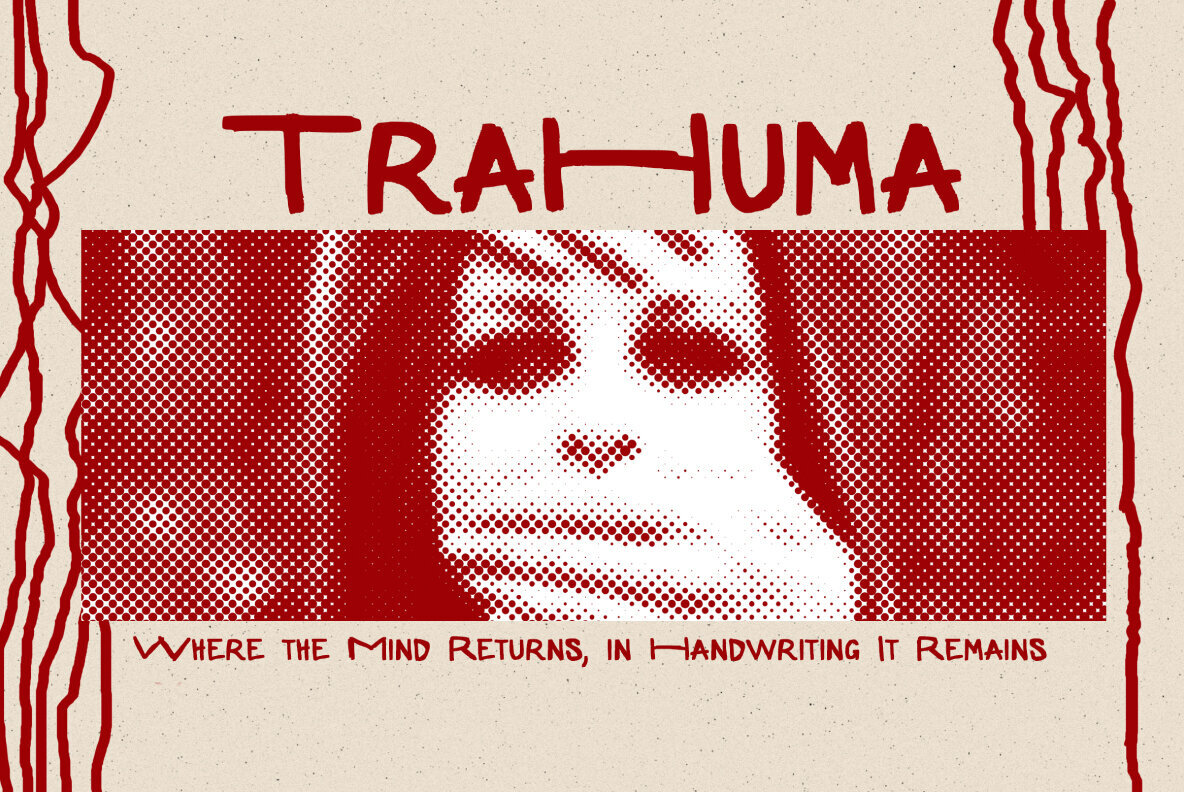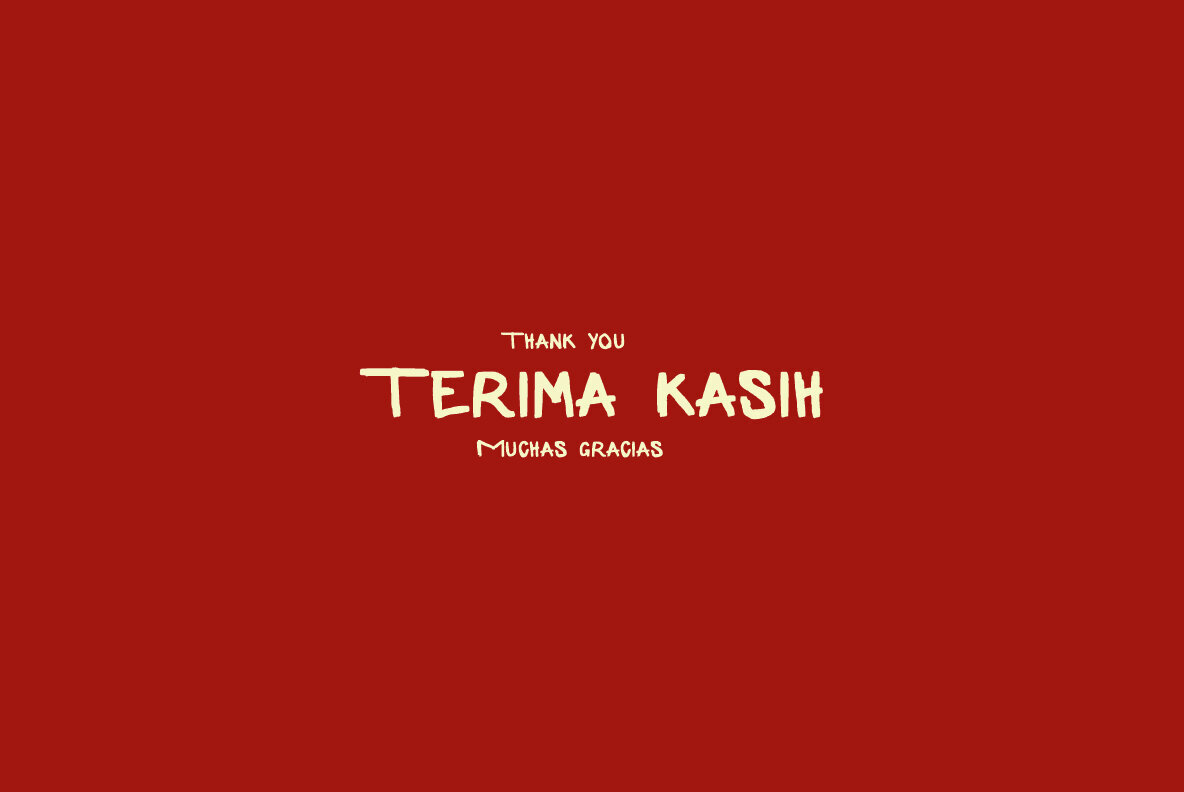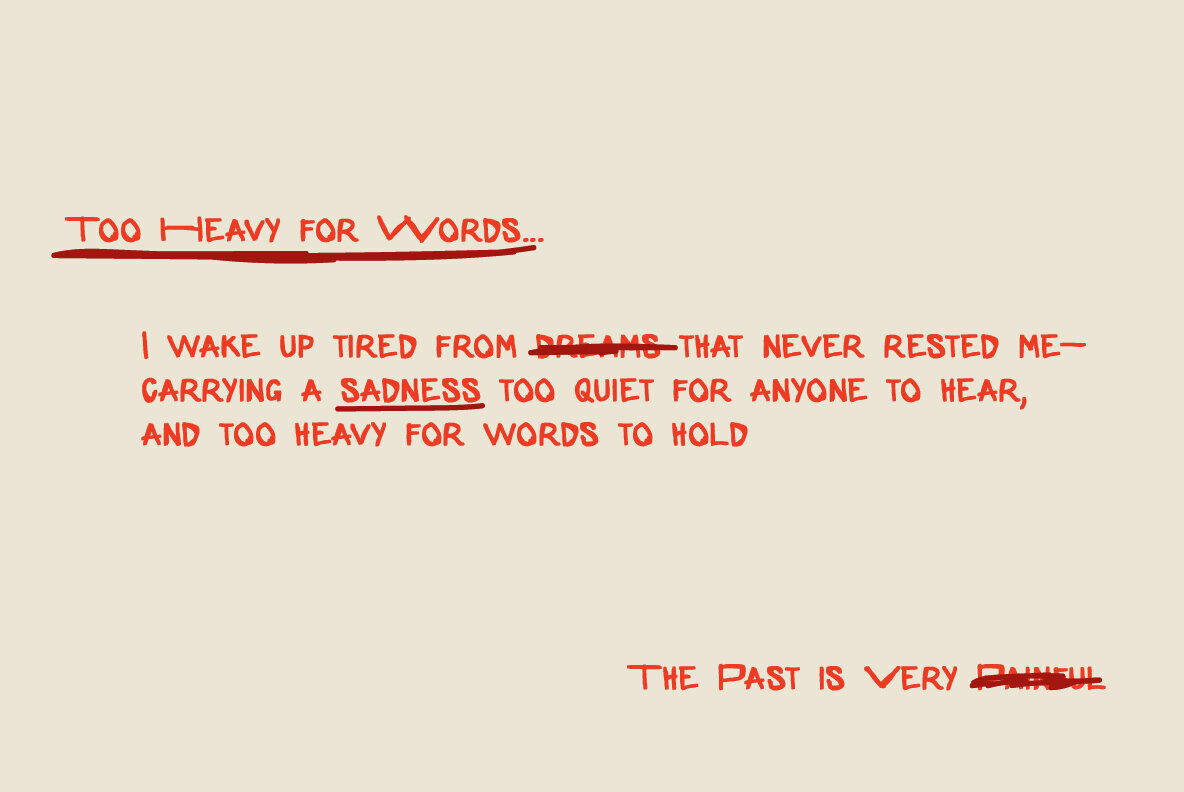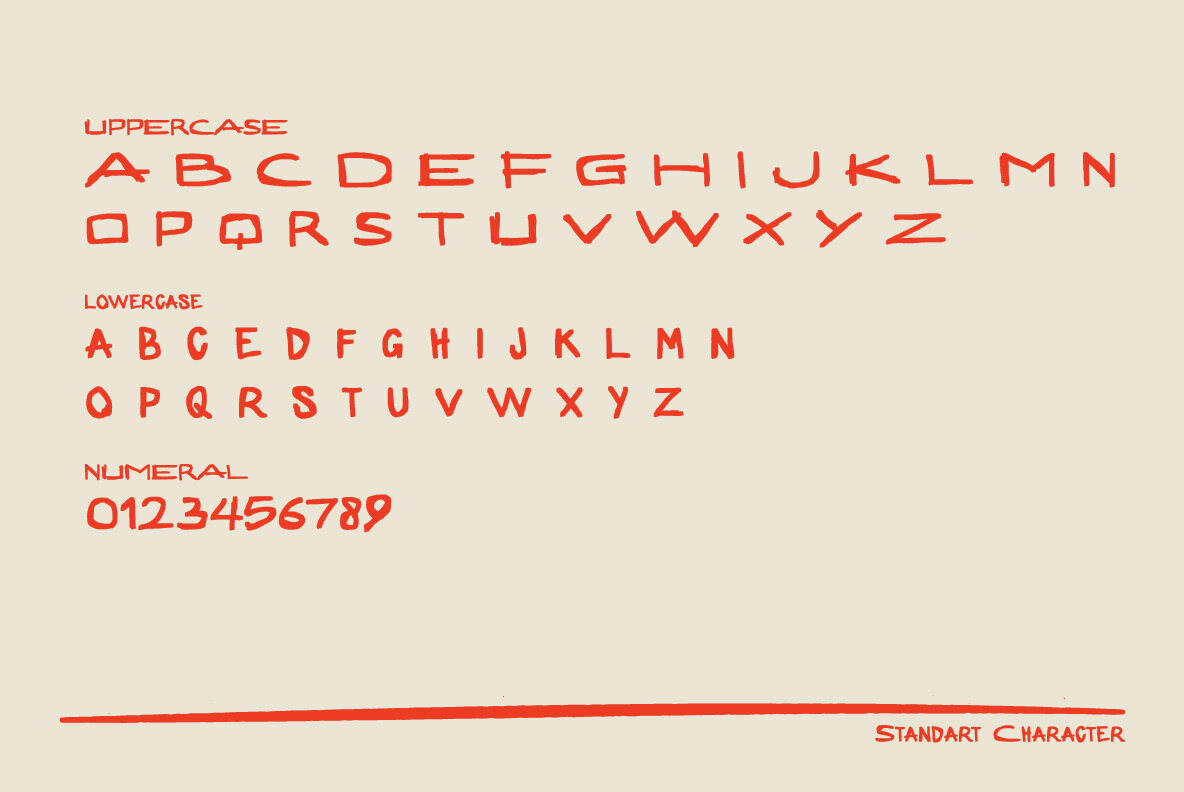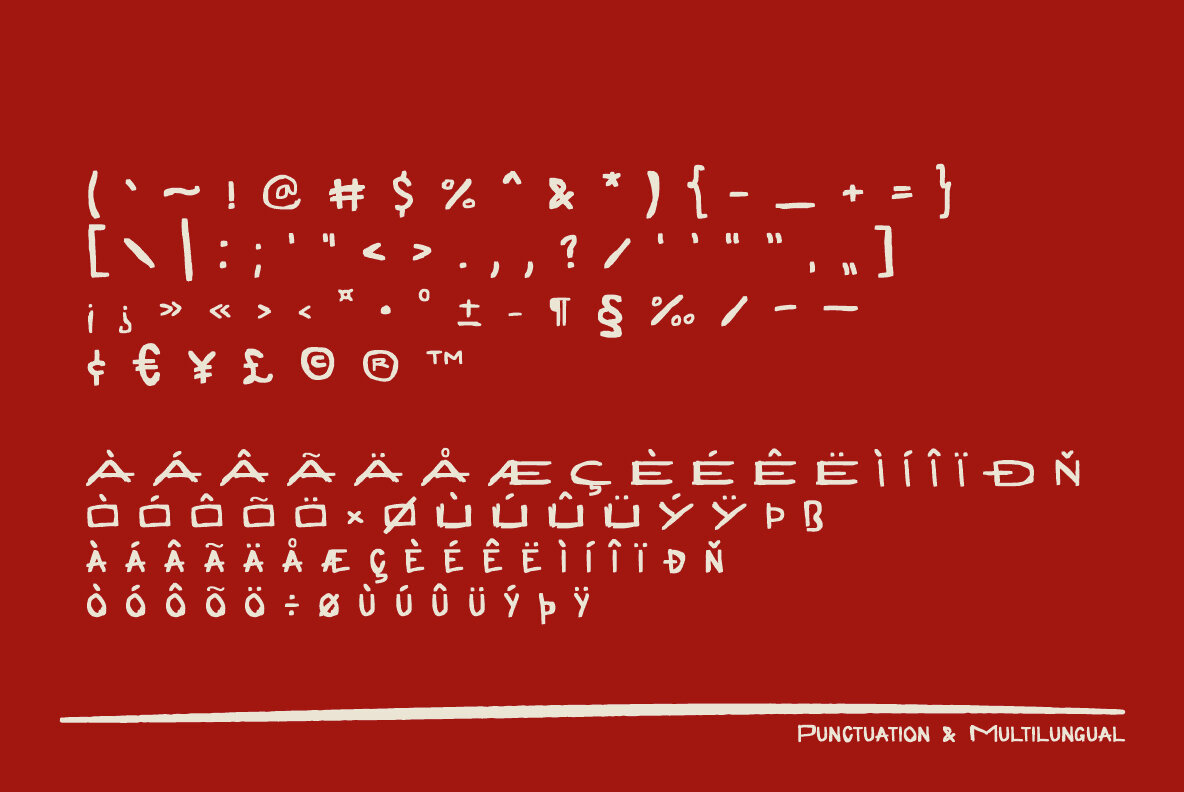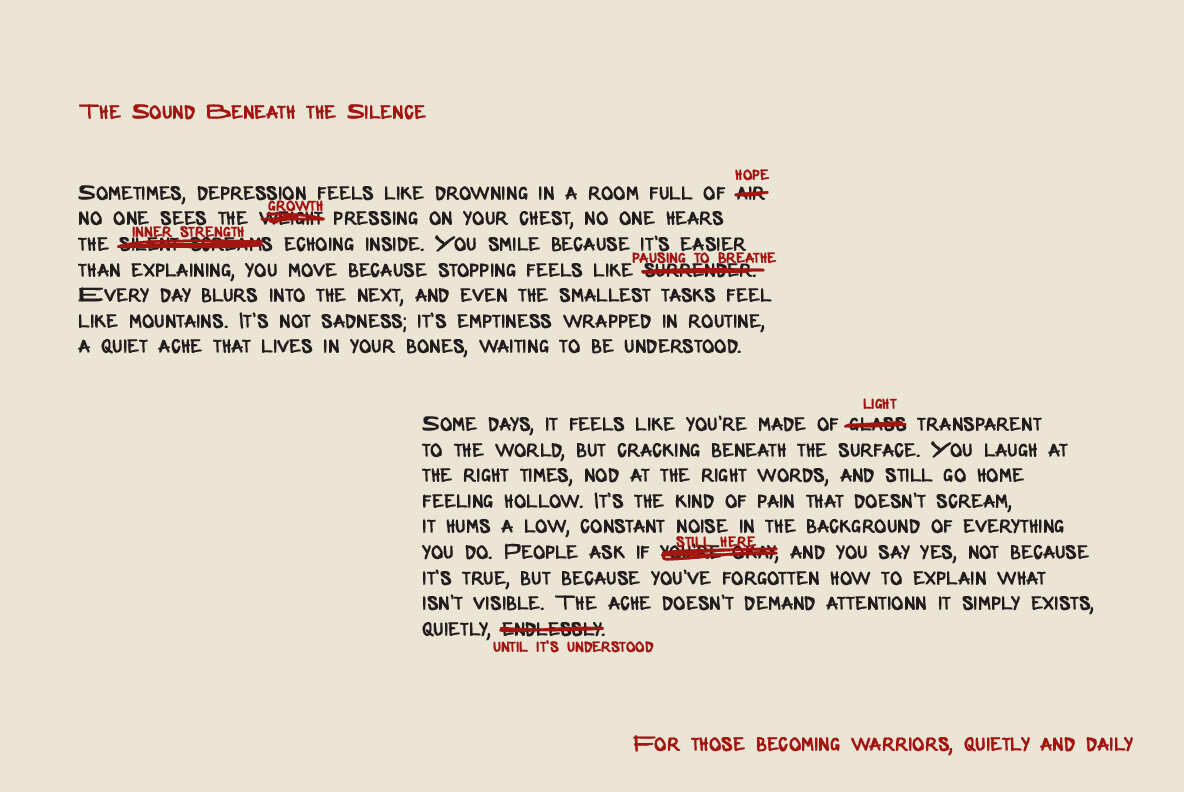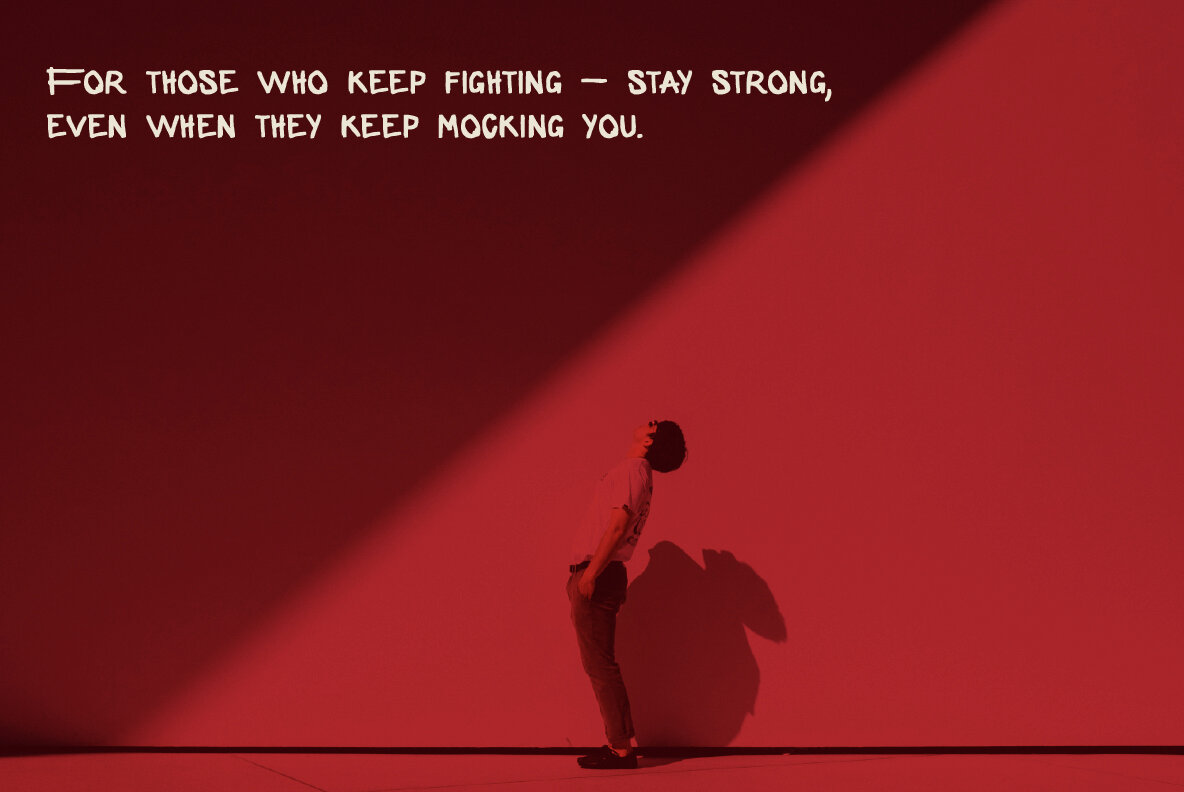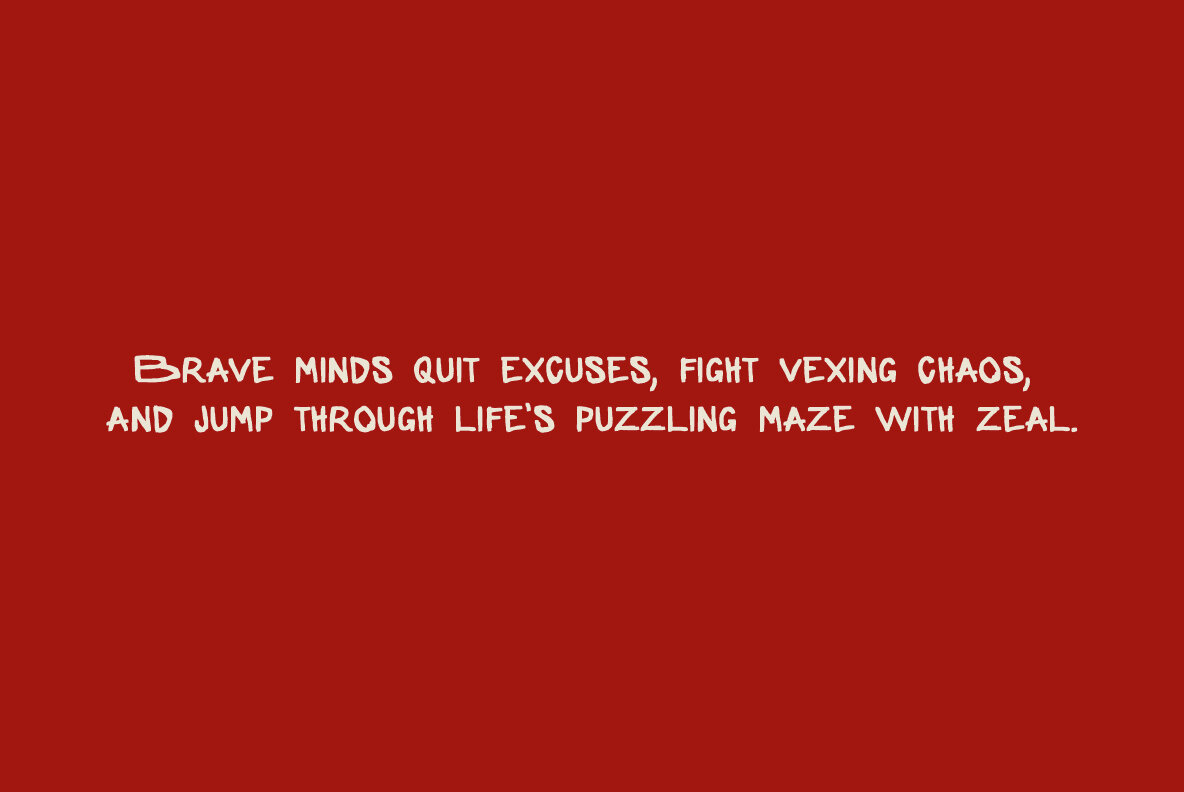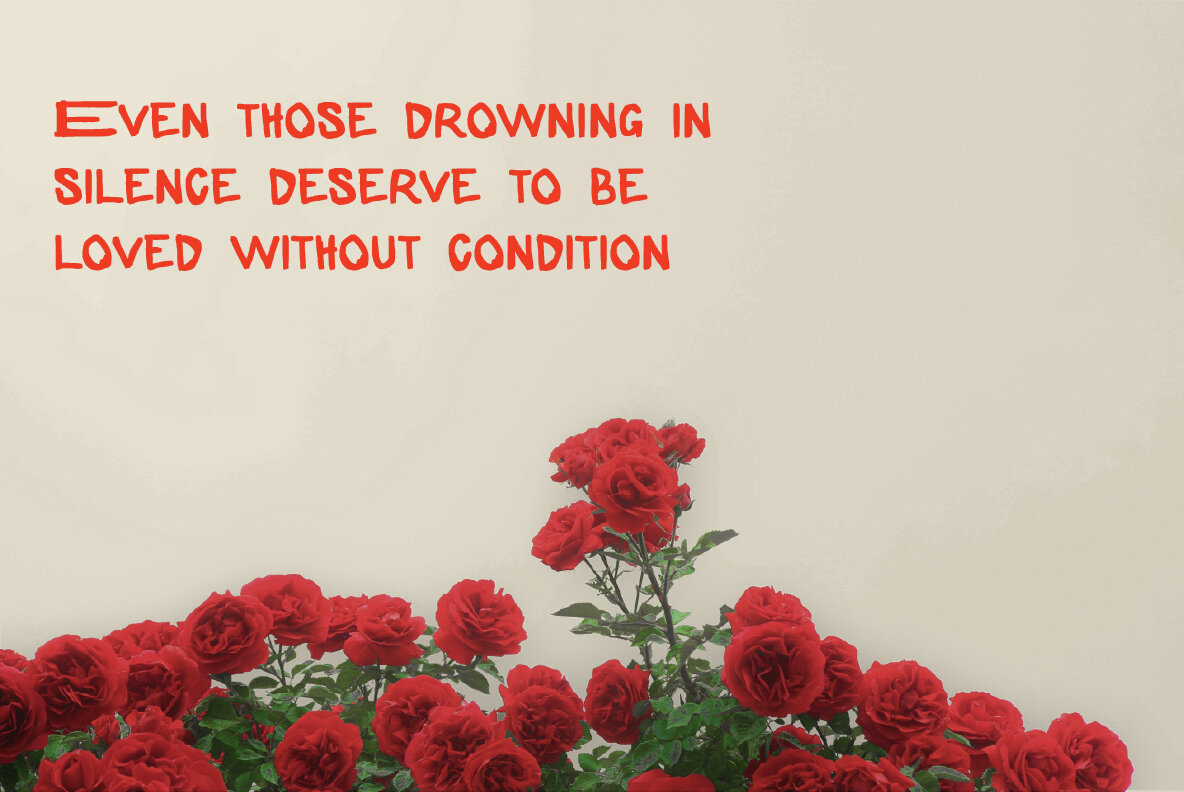
Trahuma Font
Trahuma
Meet Trahuma, your new go-to handwritten font that's all about self-expression and raw emotion. Inspired by untold stories and the complexities of human resilience, Trahuma features imperfect strokes that exude depth and vulnerability. Ideal for projects tackling themes like trauma and mental health, this font brings a bold, authentic feel to your designs. Trahuma isn't just another font—it's a powerful tool for conveying honesty and intensity in your work. Let your designs make bold statements with authenticity and character.Trahuma: A Font With Emotion
Features of Trahuma